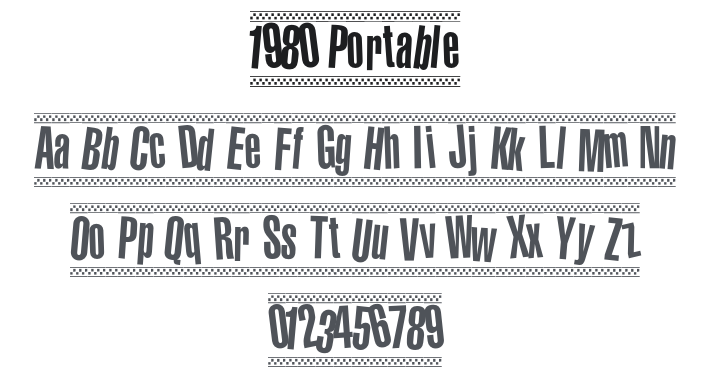
1980 Portable Font
About 1980 Portable
1980 Portable is a condensed sans-serif with letters tilted at varying angles, giving it a bouncy, energetic ska/new-wave personality. Inspired by 1960sā80s jazz album covers and the checkerboard imagery of ska culture, it feels retro yet lively. It's great for music event flyers, poster headlines, band merchandise, retro-themed branding, and anything that needs a fun, nostalgic edge.